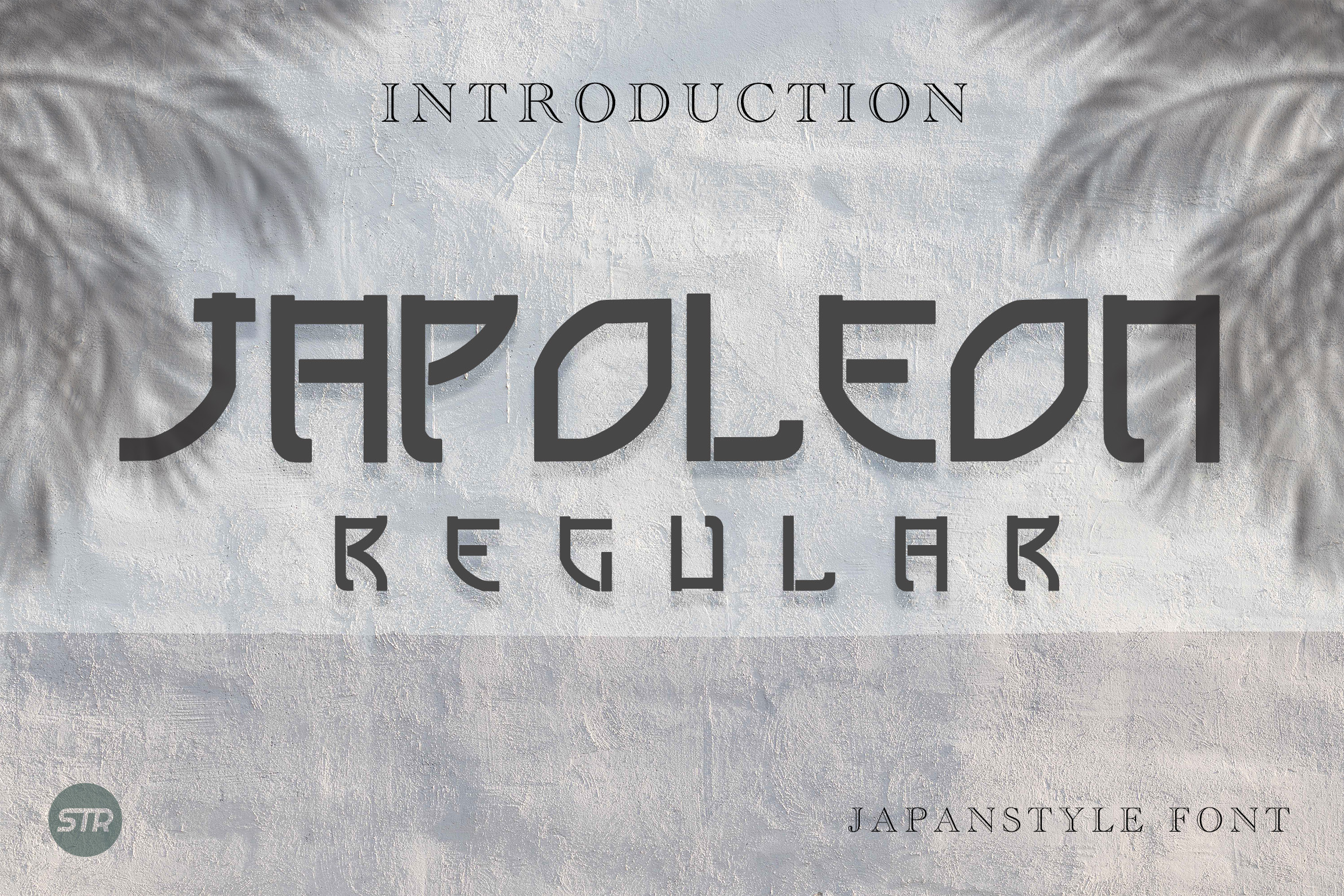
Japoleon Regular - Japan Style Font
Japoleon Regular| Japan Style Font, So beautiful on invitation like greeting cards, branding materials, business cards, quotes, posters, and more!